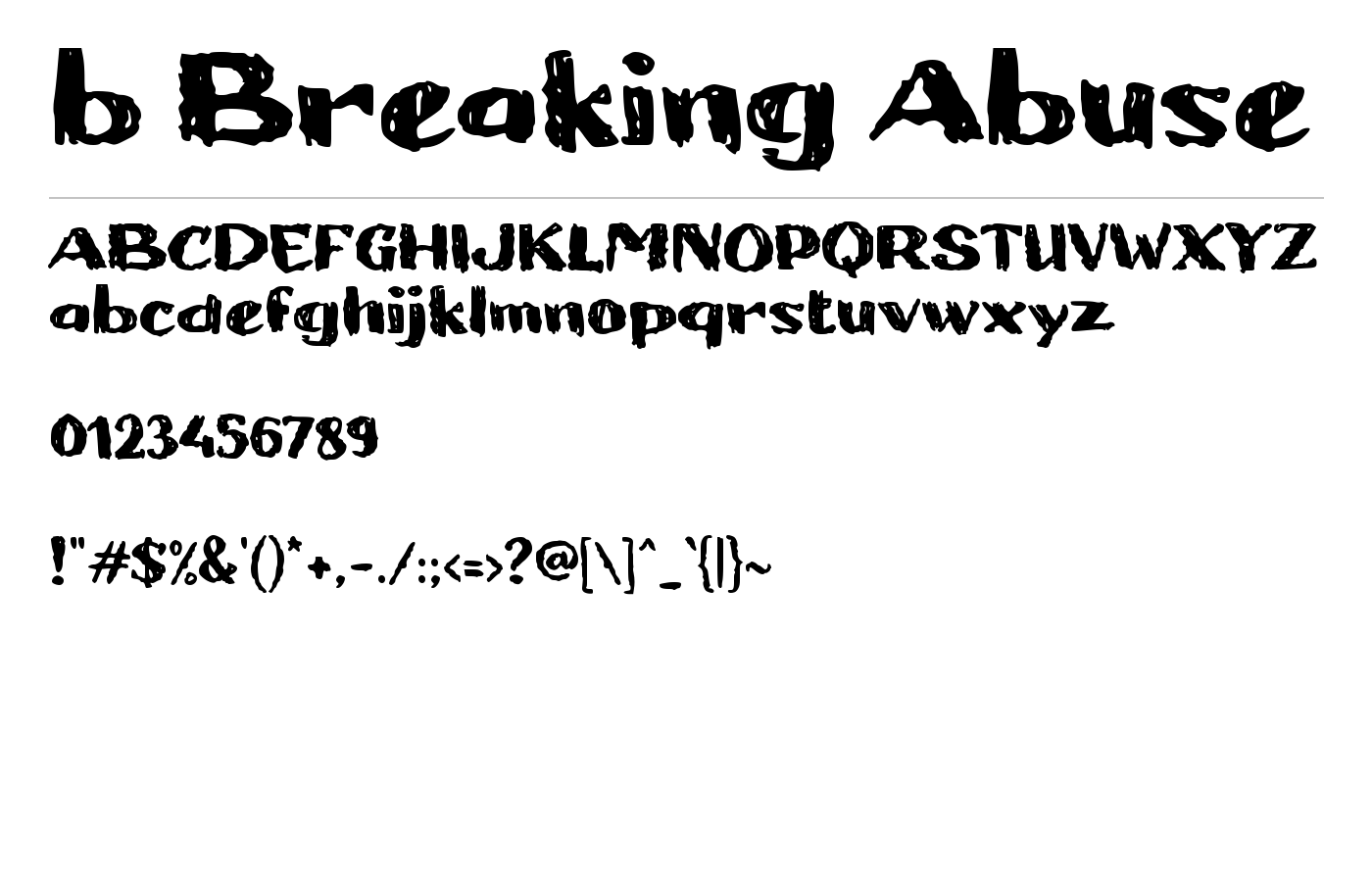
b Breaking Abuse is a bold, rough-edged display font with a distressed, hand-crafted look that gives it a raw, edgy personality. Its irregular letterforms and textured strokes make it ideal for designs that want to convey intensity, rebellion, or a gritty feel, perfect for impactful headlines, posters, and artistic branding. This font grabs attention with its strong presence and unique character, making it less suited for body text but excellent for bold statements.
b Breaking Abuse Font
About b Breaking Abuse Font